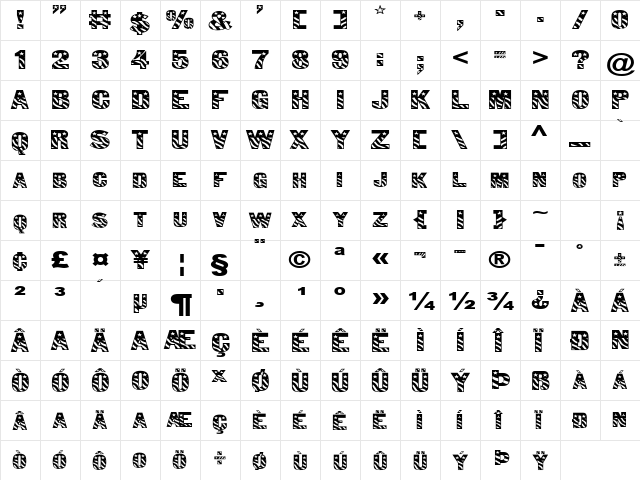
Bunting 1-Extended Normal Font Preview
Bunting 1-Extended Normal
Design Context for Bunting 1-Extended Typeface
Bunting 1-Extended is a composed and adaptable typeface that performs quietly and consistently across a wide range of design contexts.